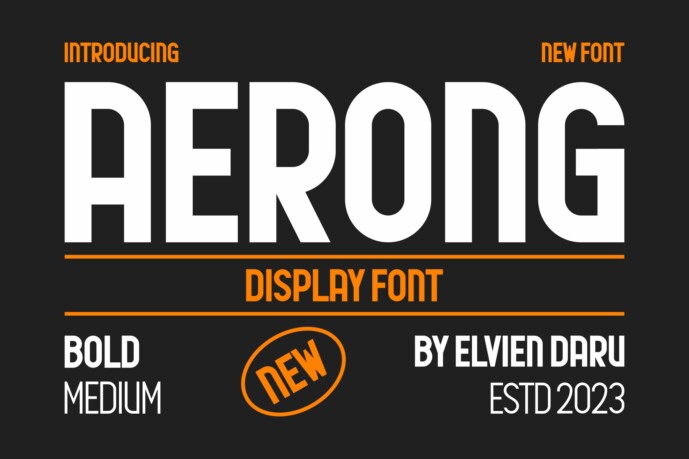
Aerong Sans Serif Modern Font
Perfectly suited on print/screen. it’s perfect for Branding, name card, poster, logo, magazine, cover, banner, t-shirt and headers, or even large-scale artwork.